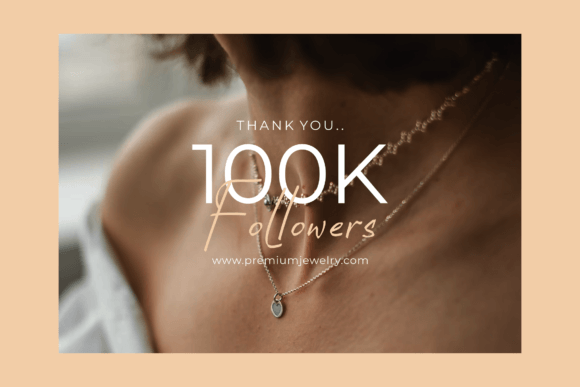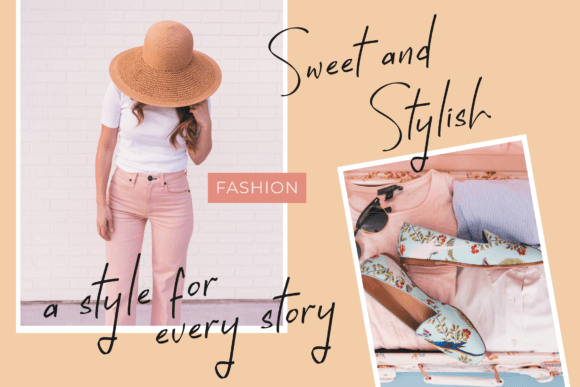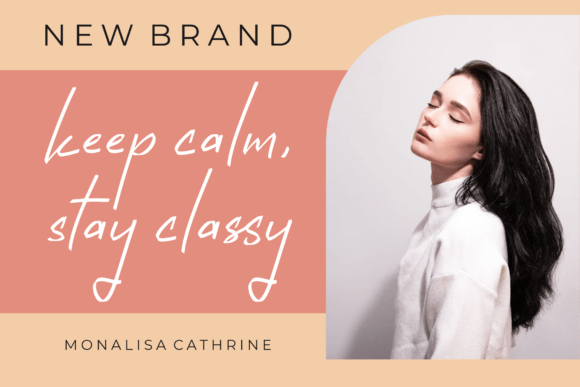
Introduction to Histerlia Wilmoth Font
Have you ever stared at a blank canvas, searching for the perfect font to bring your creative project to life? You’re not alone. As designers, we’re always on the lookout for that special something that sets our work apart. And today, I’m excited to introduce you to a hidden gem that’s about to become your new favorite design resource: the Histerlia Wilmoth Font.
With its elegant, handwritten script, this high-quality font is perfect for any project that requires a touch of sophistication and charm. Whether you’re designing logos, branding materials, or product packaging, the Histerlia Wilmoth Font is sure to add a beautiful script taste to your work. And the best part? It’s available for free download, complete with a transparent background that makes it easy to use in any design setting.
So why is the Histerlia Wilmoth Font so valuable for designers? For one, its versatility makes it a go-to choice for a wide range of creative projects. From homeware designs to photography watermarks, this font is sure to elevate your work and leave a lasting impression on your audience.
Key Features of Histerlia Wilmoth Font
- Unique, bold, and playful font style with transparent background
- Perfect for logos, branding, and typography-based creative projects
- Easy to customize and pair with other fonts for a unique design
Honest Review: Histerlia Wilmoth Font
As a designer, I’m always on the lookout for high-quality design resources to elevate my creative projects. The Histerlia Wilmoth Font caught my attention, and I decided to give it a try.
- Unique and stylish design: The Histerlia Wilmoth Font has a distinctive, elegant look that’s perfect for branding, logos, and other creative projects.
- Transparent background: The font’s transparent background allows for seamless integration with other design elements.
- Limited language support: I found that the font only supports a limited range of languages, which may be a drawback for designers working on international projects.
- No bold or italic styles: While the font’s regular style is great, I wish it came with bold and italic versions for added versatility.
Overall, I’m impressed with the Histerlia Wilmoth Font’s unique design and free availability. However, its limitations may prevent it from being my go-to font for all projects. Still, it’s a great addition to any designer’s toolkit, and I’ll definitely keep it in mind for future creative projects.
Tips for Getting the Most Out of Histerlia Wilmoth Font
Use the Histerlia Wilmoth Font in combination with other high-quality fonts to create a unique and creative look. Experiment with different font sizes, colors, and styles to add depth and visual interest to your design.
The Histerlia Wilmoth Font is suitable for a wide range of creative projects, including logos, business cards, brochures, and social media graphics. Its unique design and transparent background make it a popular choice for designers and creatives.